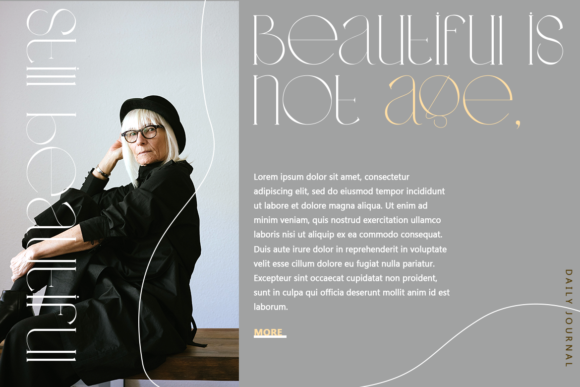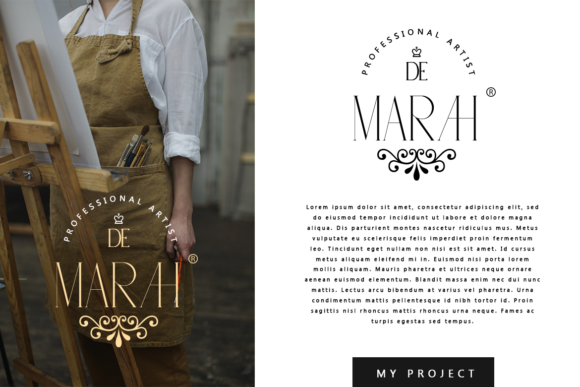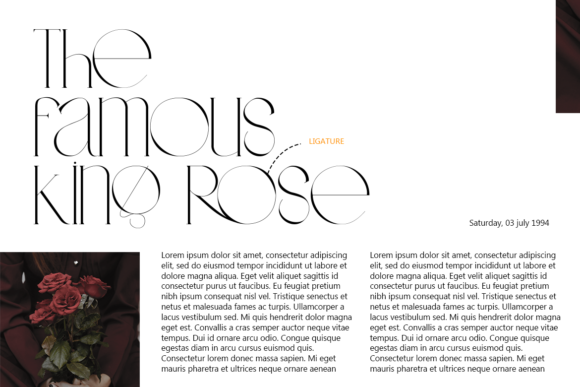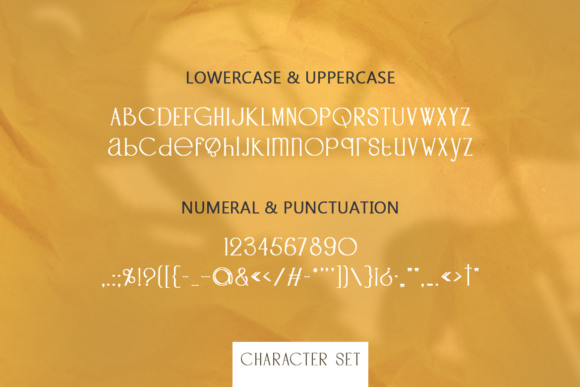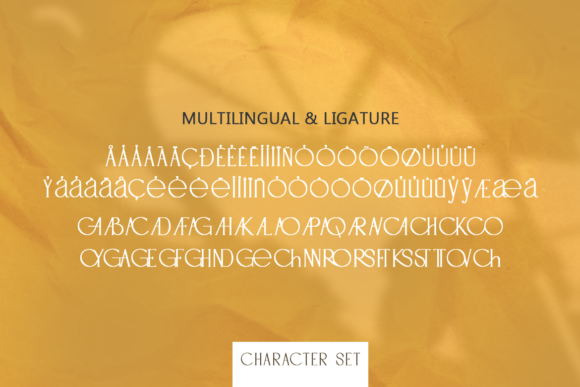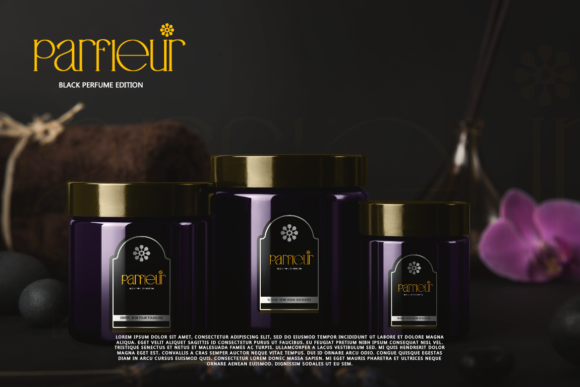
Introduction to Cheyra Font
Have you ever found yourself scrolling through your design inspiration board, only to stumble upon a project that perfectly captures the essence of your creative vision? For many designers, this moment is a rush of excitement and motivation to bring their own ideas to life. And that’s exactly what the Cheyra Font can help you achieve. With its sleek, modern design and PUA encoded glyphs, this versatile font is the perfect addition to any high-quality design project.
Whether you’re working on a creative project that requires a charming appearance or simply need a reliable design resource, the Cheyra Font is an excellent choice. Its transparent background and free download make it an accessible option for designers of all levels. But what truly sets Cheyra apart is its ability to elevate your designs with a touch of sophistication and elegance.
Key Features of Cheyra Font
- High-quality, professional font perfect for creative projects, offering a unique and elegant touch.
- Unique characteristics include its modern and sleek aesthetic, making it perfect for use in branding, logos, and creative projects.
Honest Review: Cheyra Font
As a designer, I’m always on the lookout for high-quality design resources to enhance my creative projects. The Cheyra Font caught my attention with its sleek and modern aesthetic, making it a great addition to any design library.
What works well about the Cheyra Font is its versatility. It comes in a range of weights and styles, allowing me to experiment with different typography combinations in my designs. The font’s transparent background also makes it easy to overlay on images and other design elements, creating a seamless look.
Some of the key features I appreciate about the Cheyra Font include:
- High-quality vector graphics
- Transparent background for easy overlay
- Wide range of weights and styles for versatility
However, I do find that the font can be a bit too light in certain weights, which can make it difficult to read at smaller sizes. ⚠️ This is a minor limitation, but one to be aware of when using the font in certain contexts.
Overall, I’m impressed with the Cheyra Font and would recommend it to fellow designers looking for a high-quality, modern font for their creative projects.
The Cheyra Font is commonly used in graphic design, logo creation, and digital art. Its unique style and high quality make it a popular choice for creative projects, and its transparent background makes it easy to use in a variety of design applications.